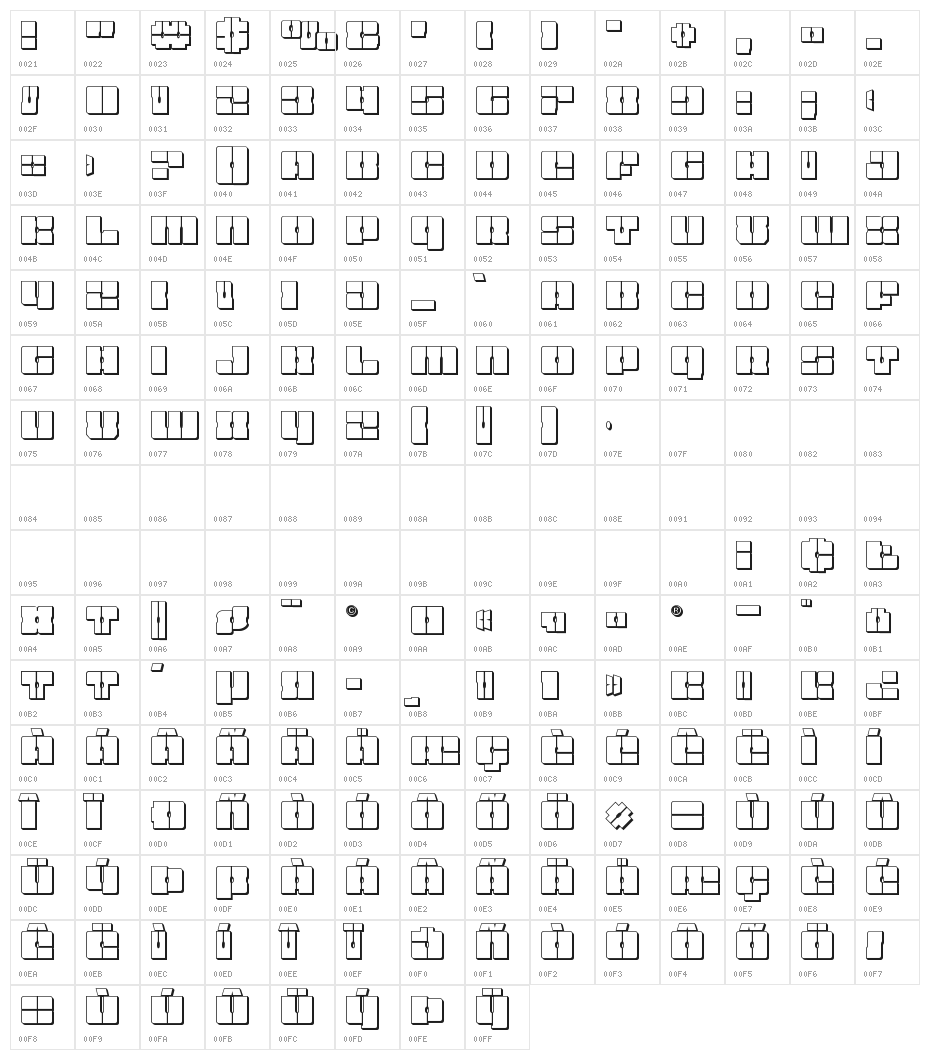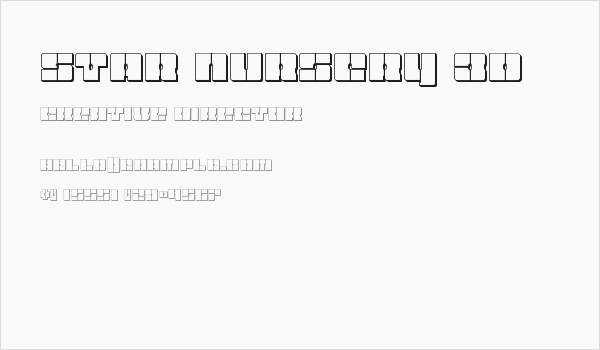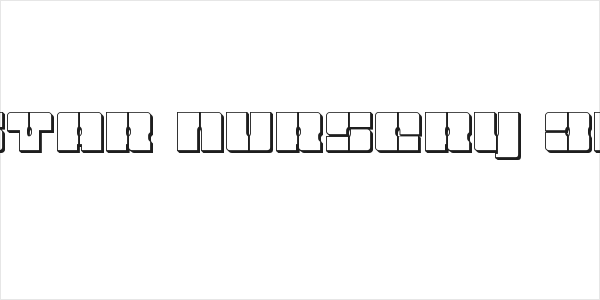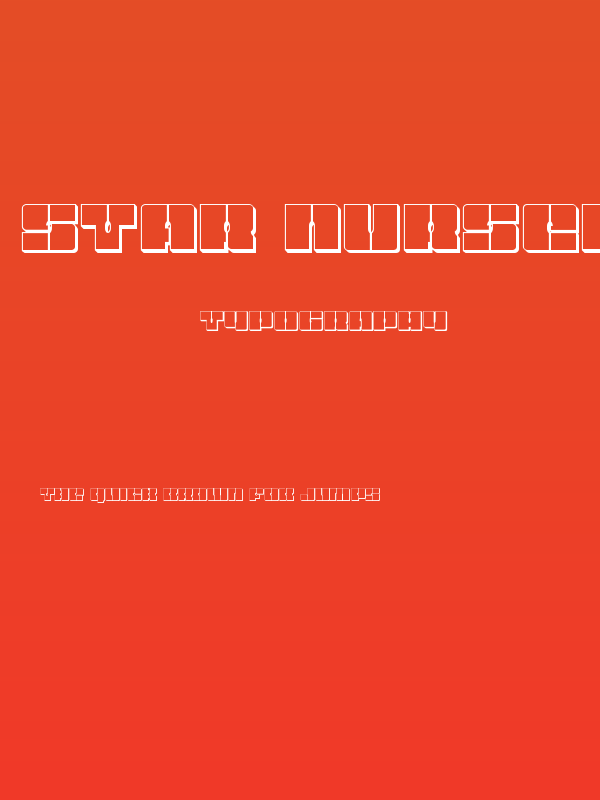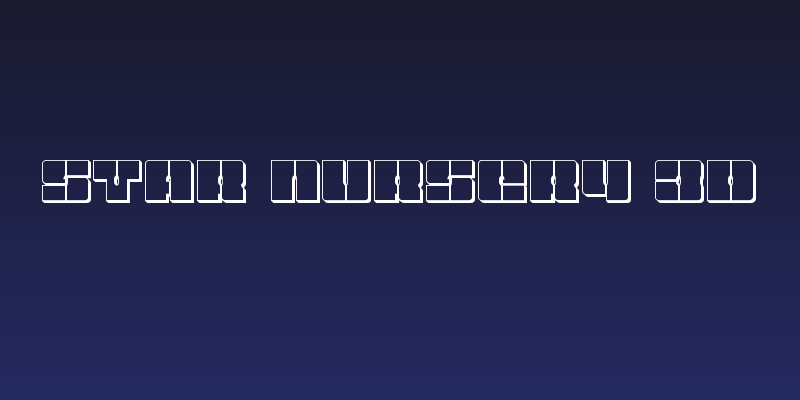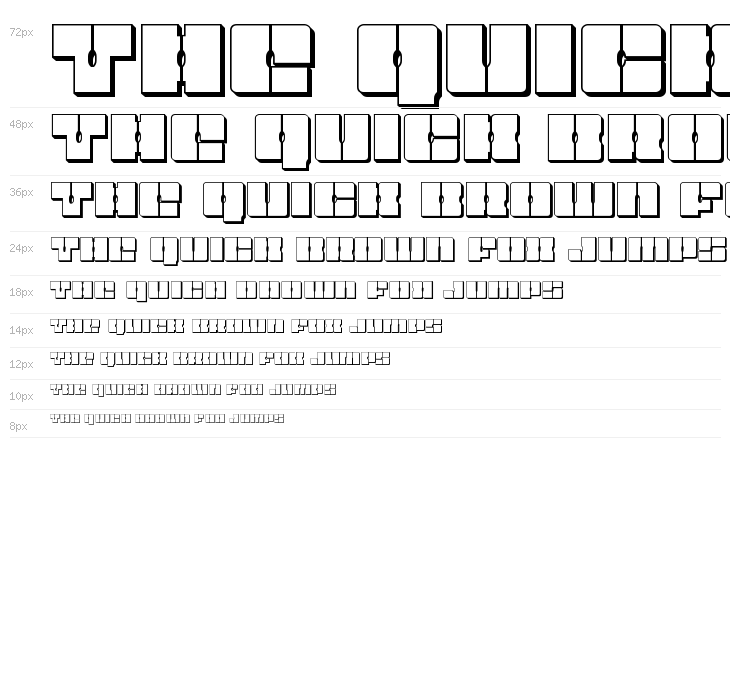
Star Nursery 3D Font
Star Nursery 3D Description
This font features a unique 3D block style with a playful and futuristic appearance. Each character is enclosed in a rectangular shape with rounded corners, giving it a distinct, modular look. The letters are bold and have a uniform thickness, with small cutouts that add a touch of whimsy. The design is consistent across uppercase, lowercase, numbers, and special characters, maintaining a cohesive aesthetic. The font's geometric structure and clean lines make it stand out, while the 3D effect adds depth and dimension, making it suitable for creative and modern design projects.